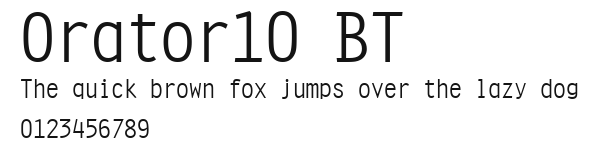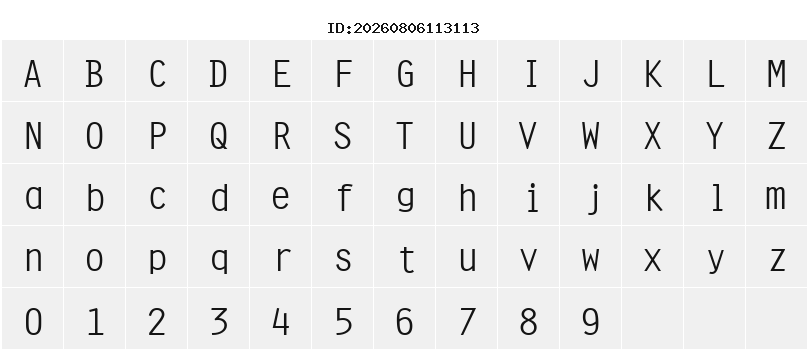
• Font Name: Orator10 BT
• Font ID: Orator 10 Pitch, Fixed Pitch 910
• Full Font Name: Orator 10 Pitch BT
• PostScript Name: OratorBT-TenPitch
About Orator10 BT.ttf
Orator10 BT.ttf is a modern, elegant sans-serif font designed for ultimate readability and visual harmony. Perfect for branding, headlines, web design, and print materials.